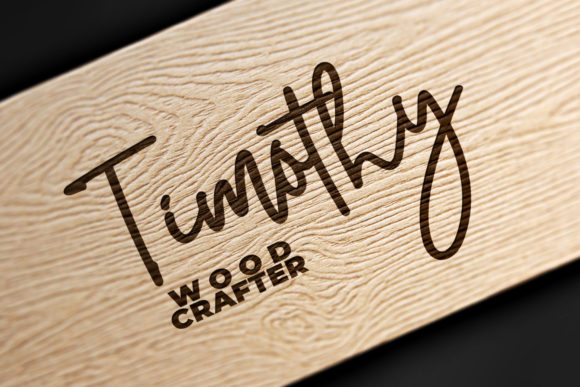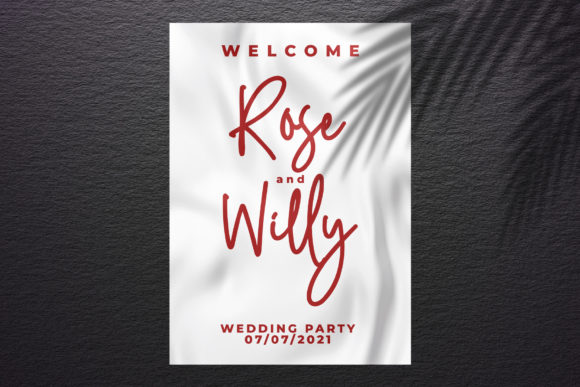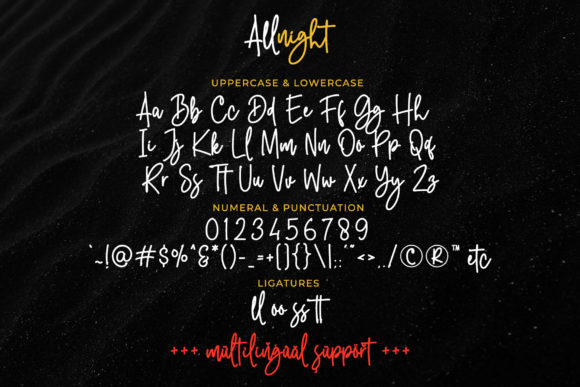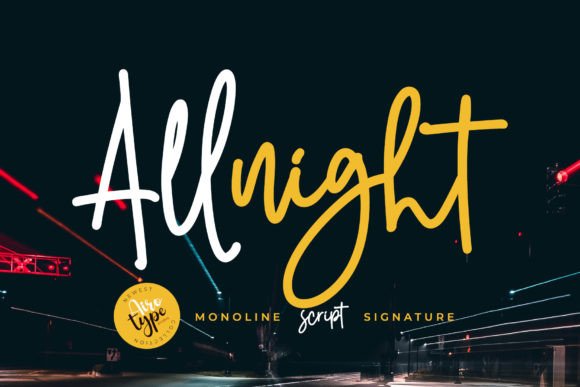
The All Night Font: A Modern, Elegant, and Casual Handwritten Delight
I’ll never forget the design project that led me to discover the All Night font. I was working on a wedding invitation for a close friend, and I was struggling to find the perfect font that exuded both elegance and a relaxed vibe. The invitation needed to reflect the couple’s fun and adventurous personalities while still being sophisticated enough for a formal wedding. After hours of scouring font libraries and testing various options, I stumbled upon All Night – and it was love at first sight!
An Honest Review of All Night Font
What I Love About All Night Font
- ✨ Modern and casual handwritten style: All Night strikes the perfect balance between being elegant and classy while maintaining a relaxed, approachable feel.
- ✅ Versatile: This font is perfect for a wide range of projects, from wedding invitations and signatures to branding, crafting, stickers, sublimation, farmhouse labels, and more.
- 💫 Easy to read: Despite its elegant and cursive nature, All Night remains highly legible, making it suitable for both headings and body text.
While All Night is an excellent font, there are a few minor quirks to be aware of:
- ⚠️ Limited availability of extended language support: If you need to support a wide range of languages, you might want to double-check the font’s capabilities.
- 🤔 Some characters may require manual kerning: As with many handwritten fonts, you might need to adjust the kerning of certain character pairs to achieve optimal spacing.
The Story Behind All Night Font
All Night was designed with the intention of creating a modern, elegant, and casual handwritten font that would cater to a wide range of design needs. The designer aimed to craft a font that exudes a sense of sophistication while still being approachable and friendly. Although the real story behind the font’s creation might be fictional, it’s clear that the designer succeeded in creating a versatile and beautiful typeface.
Q: What type of projects is All Night font best suited for?
A: All Night is an incredibly versatile font, making it suitable for a wide range of projects, including wedding invitations, signatures, branding, crafting, stickers, sublimation, farmhouse labels, and more.
Q: Is All Night font easy to read?
A: Yes, despite its elegant and cursive nature, All Night remains highly legible, making it suitable for both headings and body text.
Q: Does All Night font support OpenType features?
A: Yes, All Night font supports OpenType features, including ligatures and stylistic alternates, allowing you to add more flair to your text.